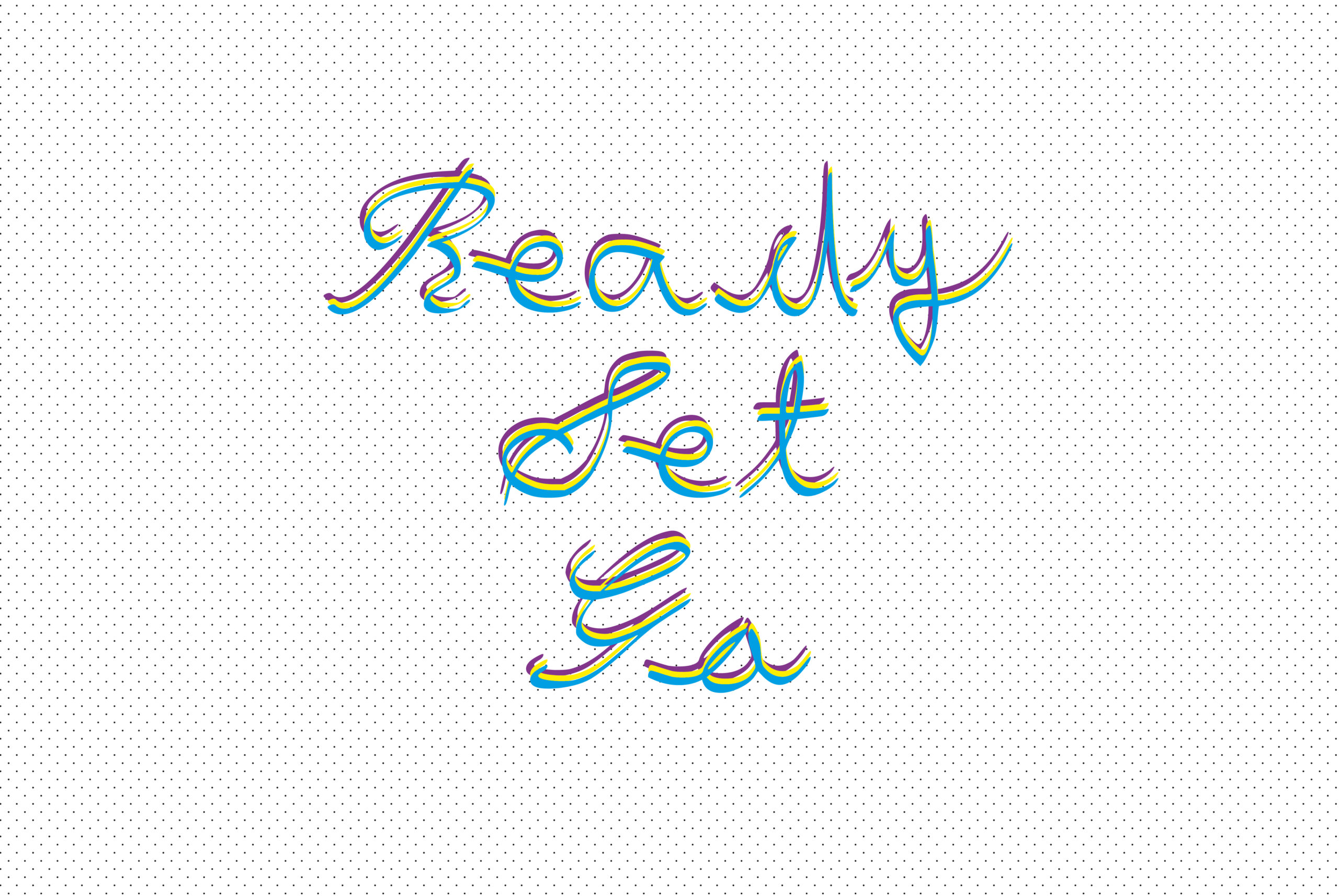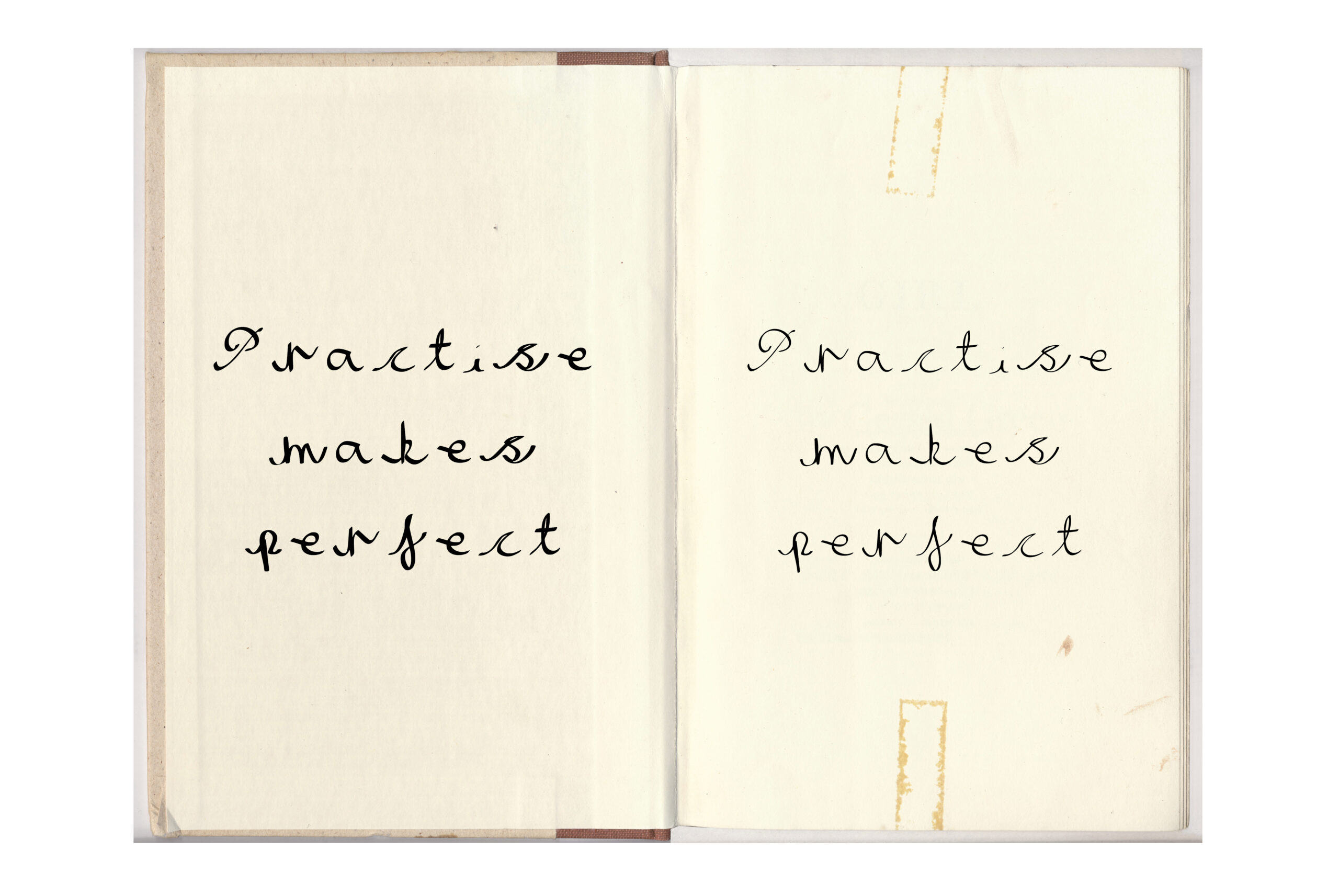
Join Me Font
Based on my own handwriting, this casual script font can add some authenticity and relaxed charm to your designs.
No numbers are included in this font.